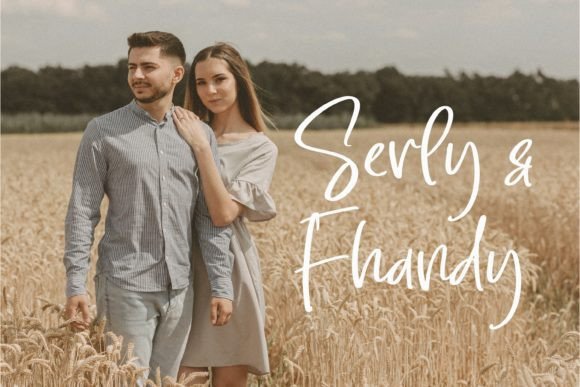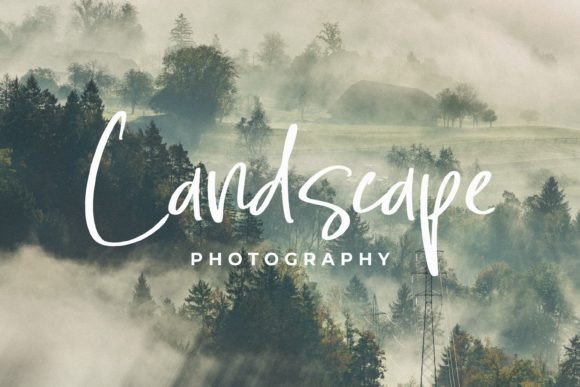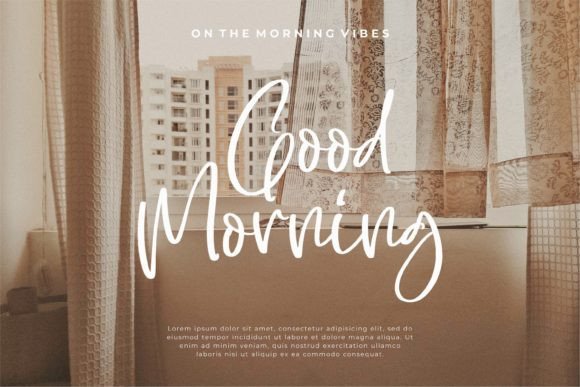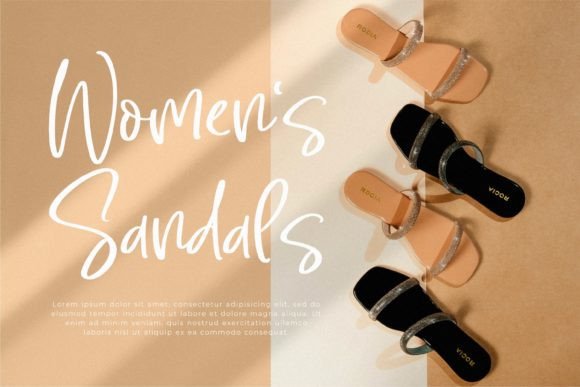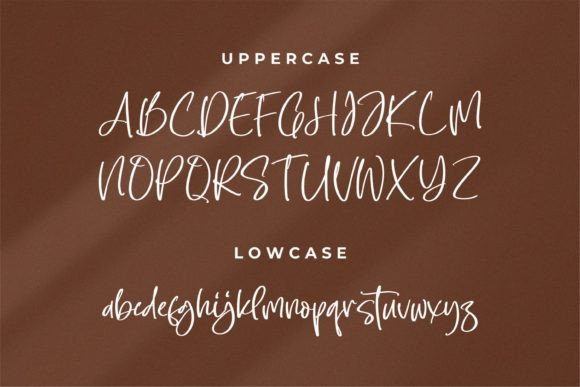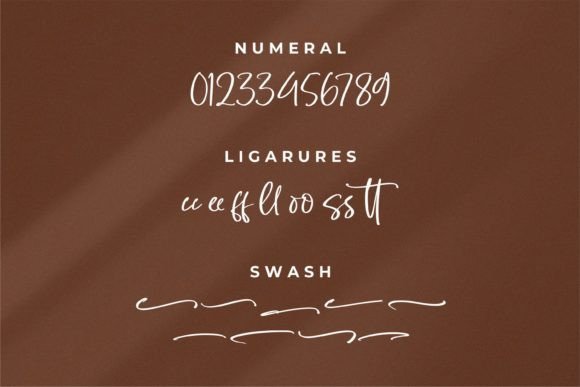
Introduction to Sellaheby Font
Sellaheby is a modern script font perfect for any project such as logos, branding projects, homeware designs, product packaging, mugs, quotes, posters, shopping bags, T-shirts, book covers, business cards, invitation cards, greeting cards, labels, photography, watermarks, special events, and all your other luxury projects that require a premium taste.
Key Features of Sellaheby Font
Why Choose Sellaheby Font?
Sellaheby Font offers exceptional quality and versatility, making it a valuable addition to your design toolkit. Whether you’re creating for personal projects or commercial use, Sellaheby Font delivers professional results.